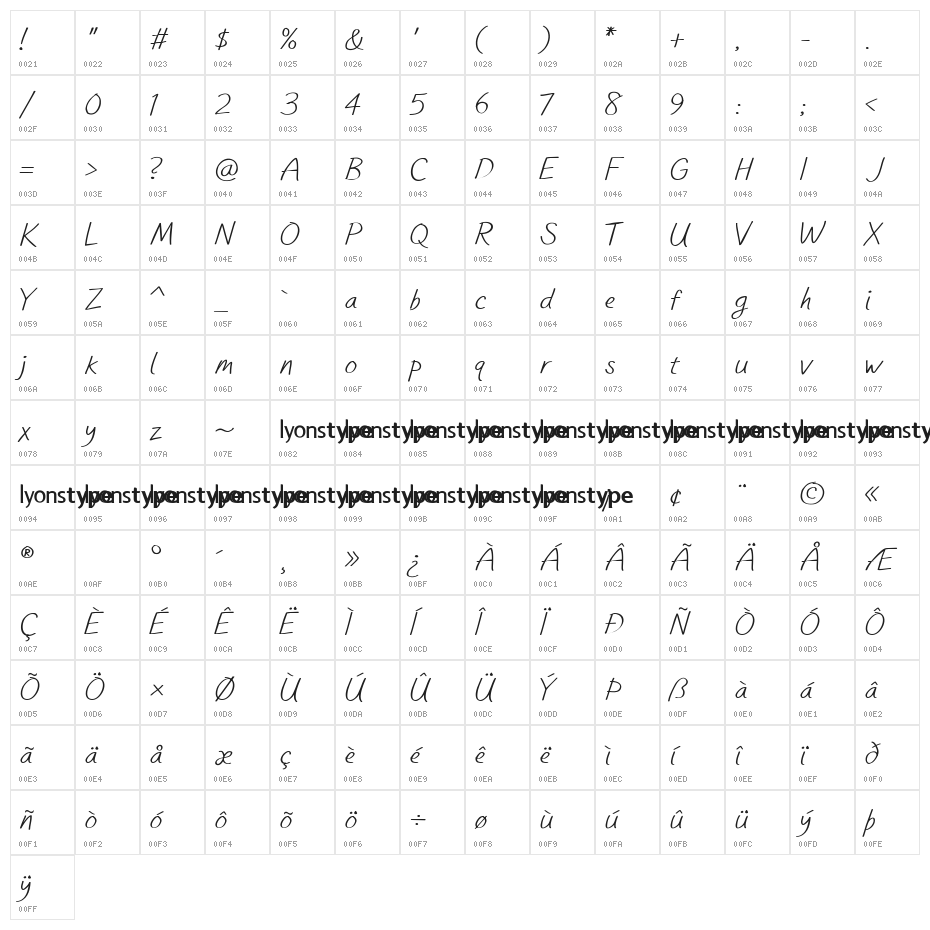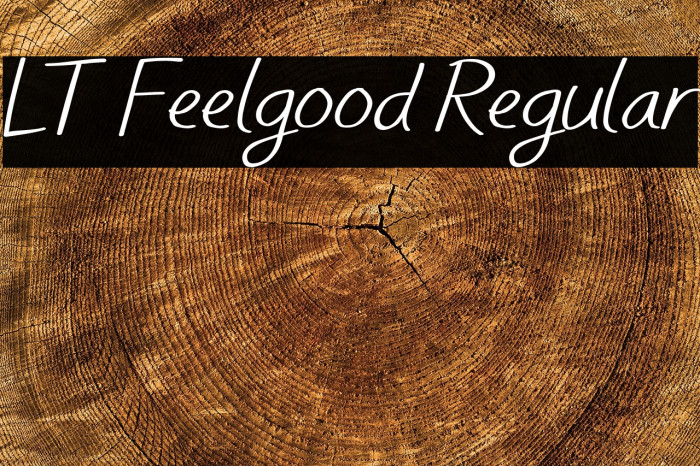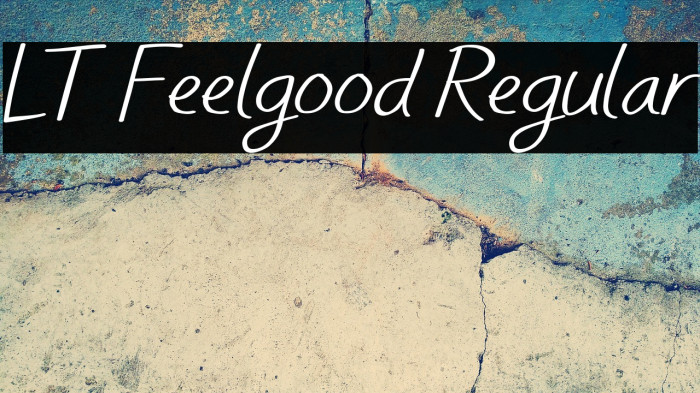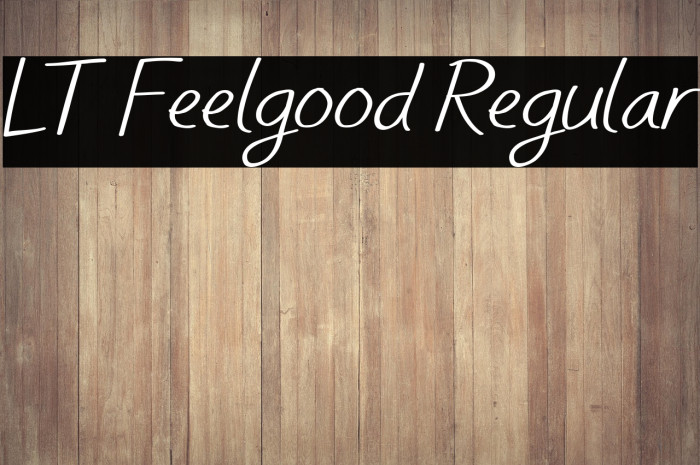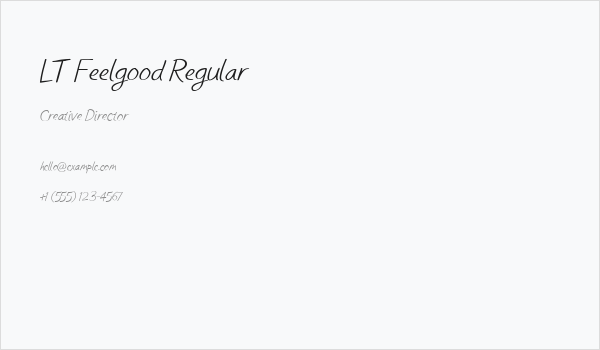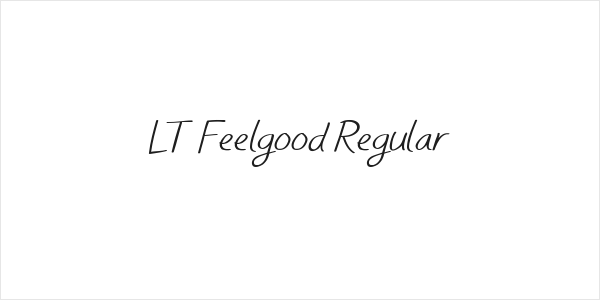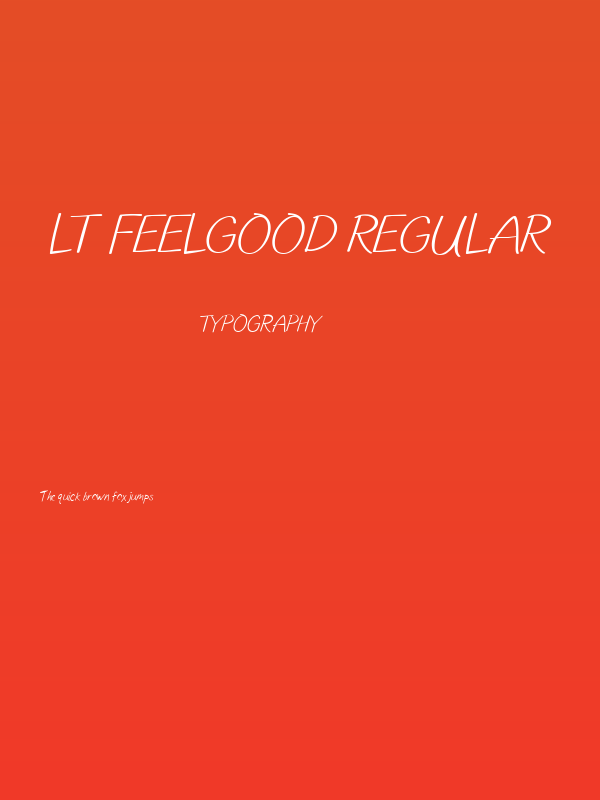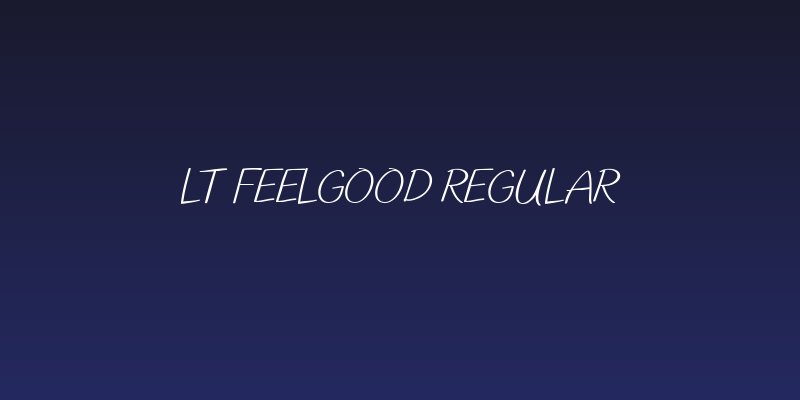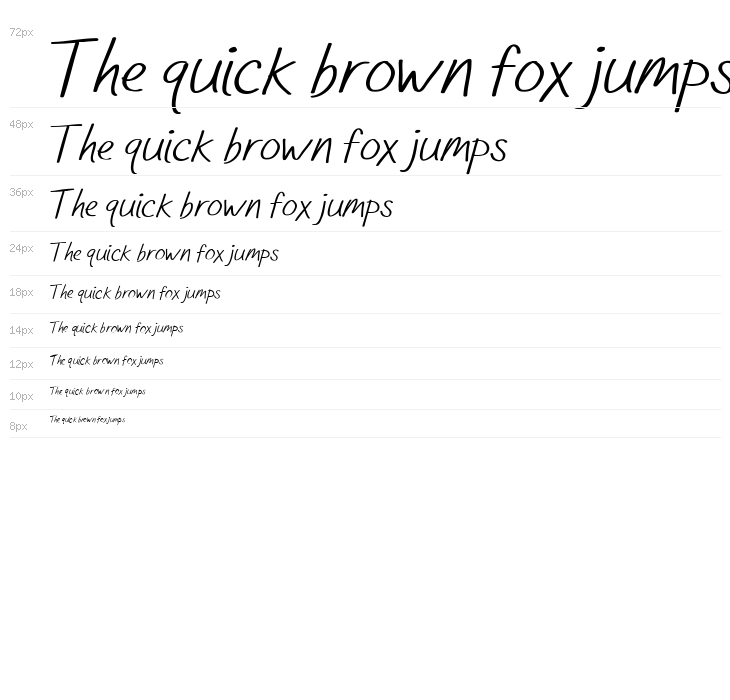
LT Feelgood Regular Font
LT Feelgood Regular Description
This font exhibits a casual and flowing handwritten style, characterized by its smooth and slightly slanted letterforms. The strokes are consistent and fluid, giving it a natural and approachable feel. The uppercase letters maintain a uniform height, while the lowercase letters feature gentle curves and loops that enhance its handwritten appeal. The numerals are clear and legible, matching the overall aesthetic. Special characters are well-integrated, maintaining the font's cohesive look. This font is versatile, suitable for projects that require a personal touch.
| Overall Style | Casual, Personal |
| Proposed Projects | Ideal for greeting cards, personal branding, invitations, and creative projects that benefit from a personal, handwritten touch. |